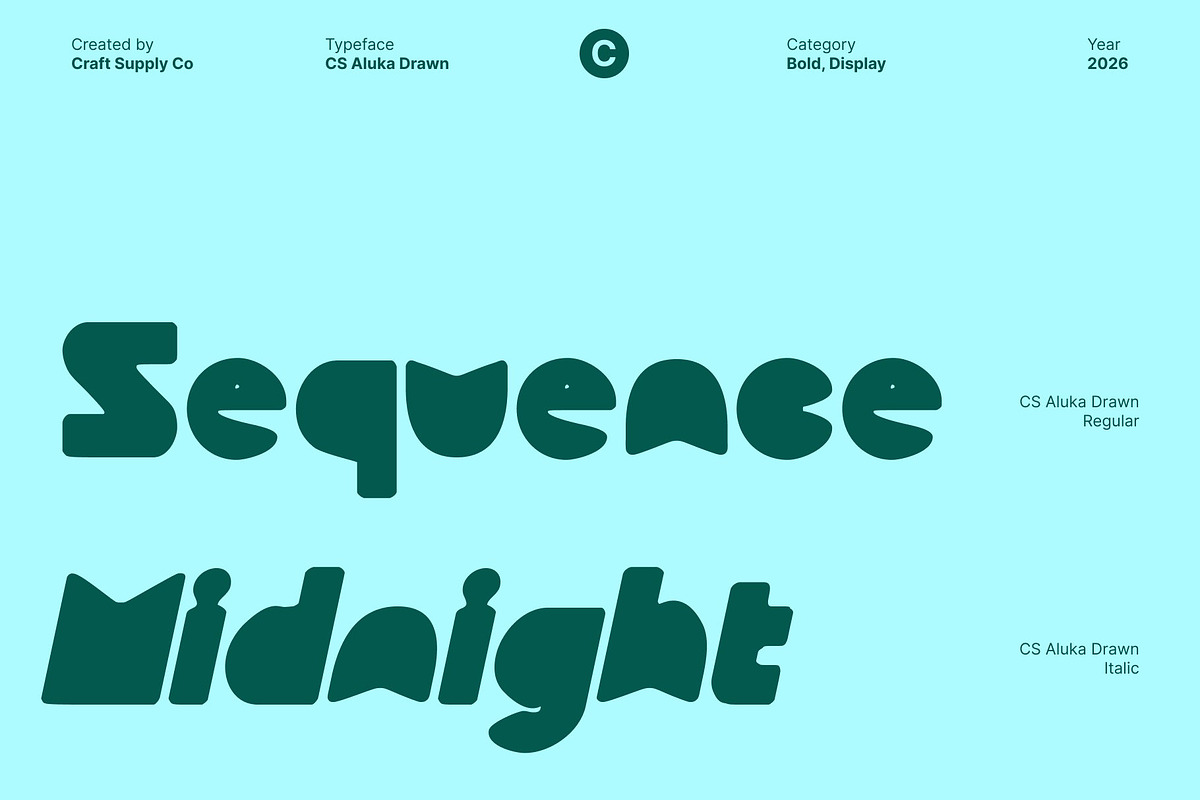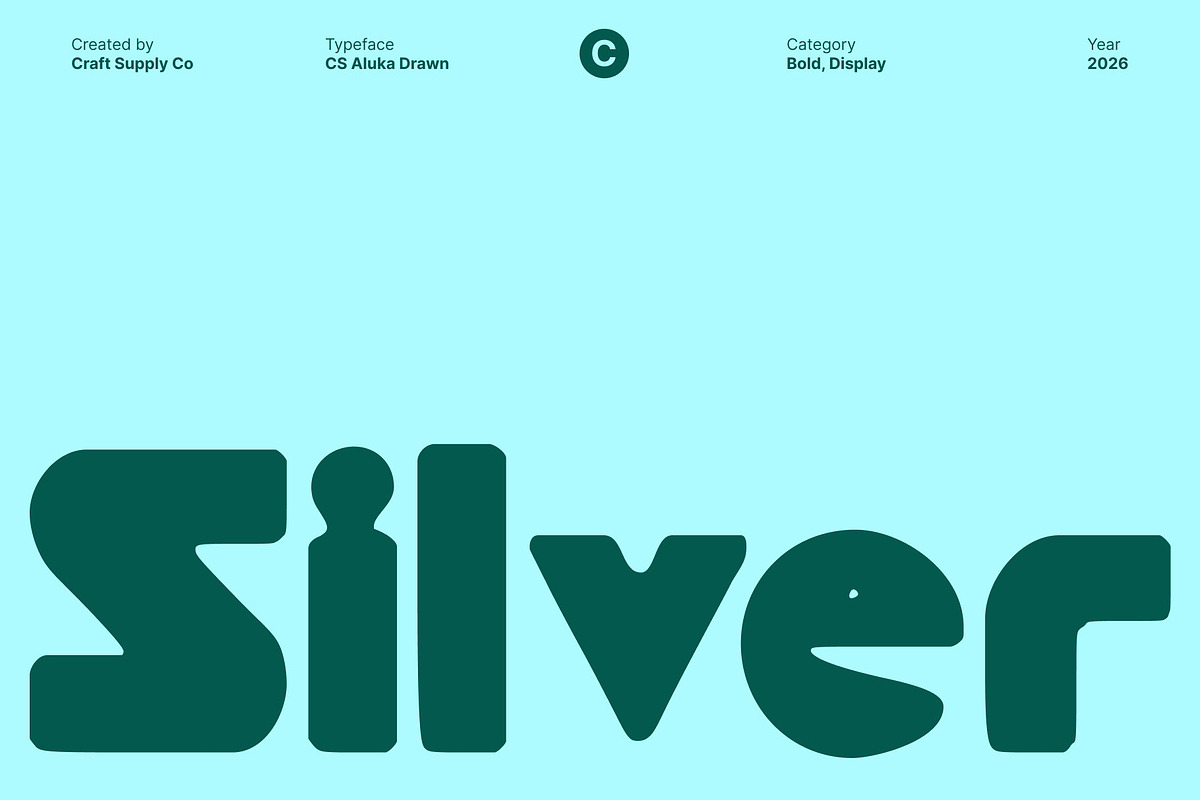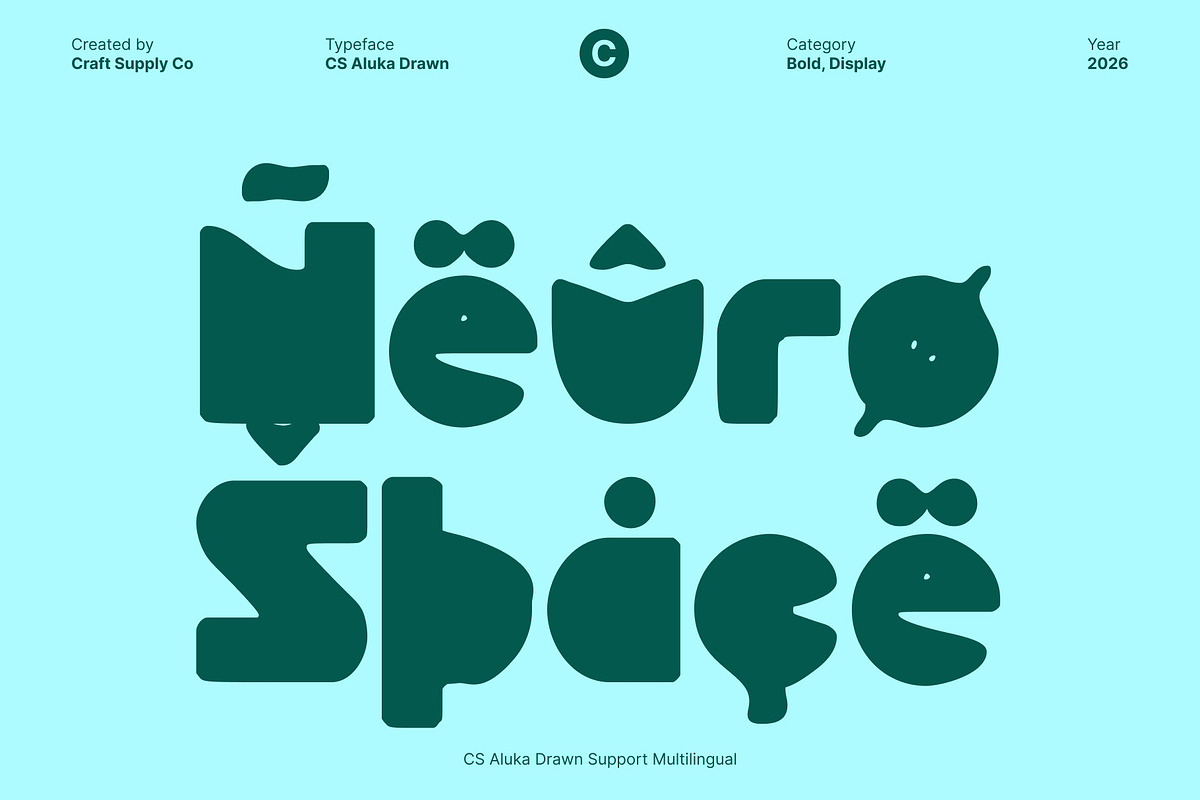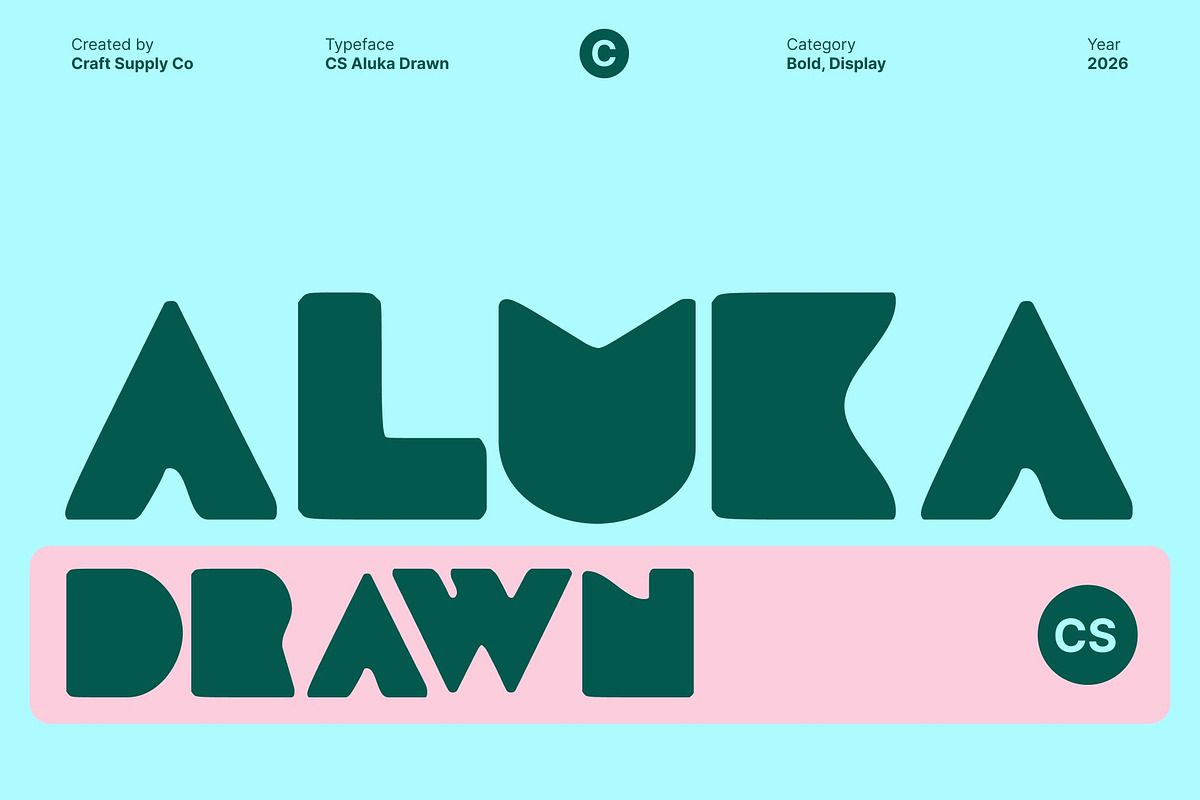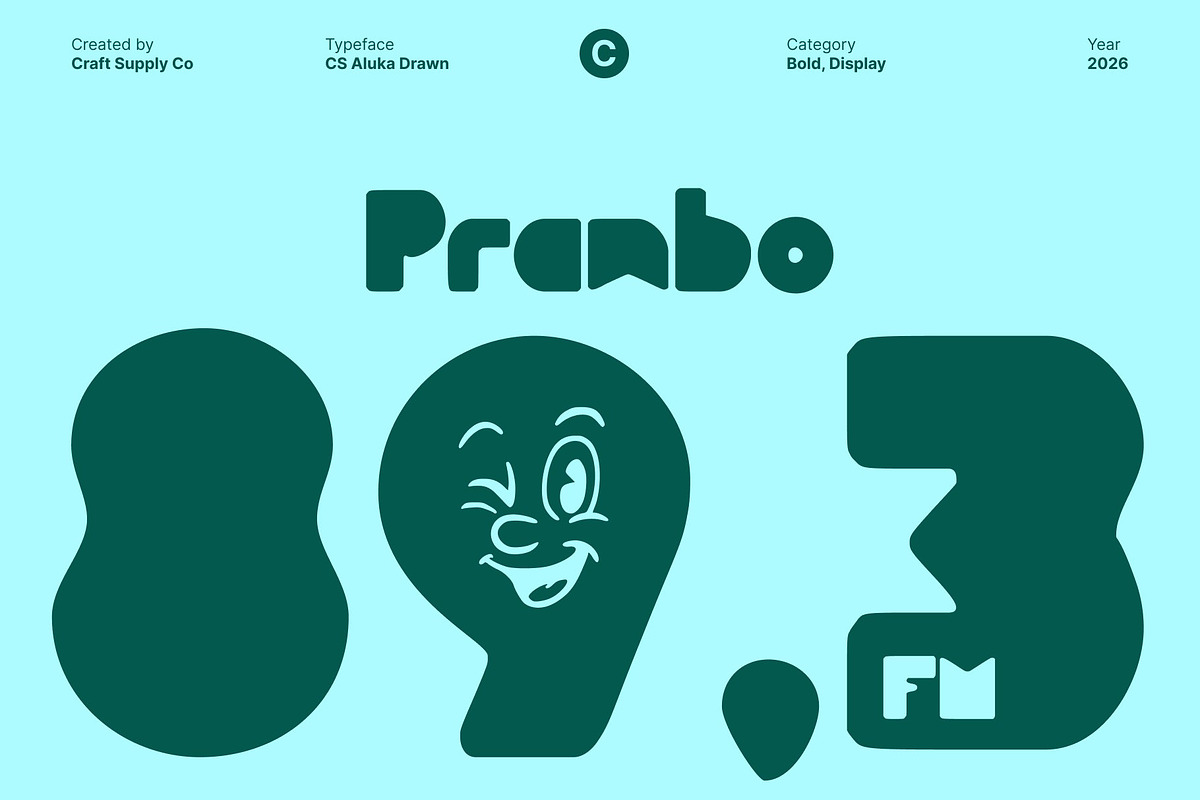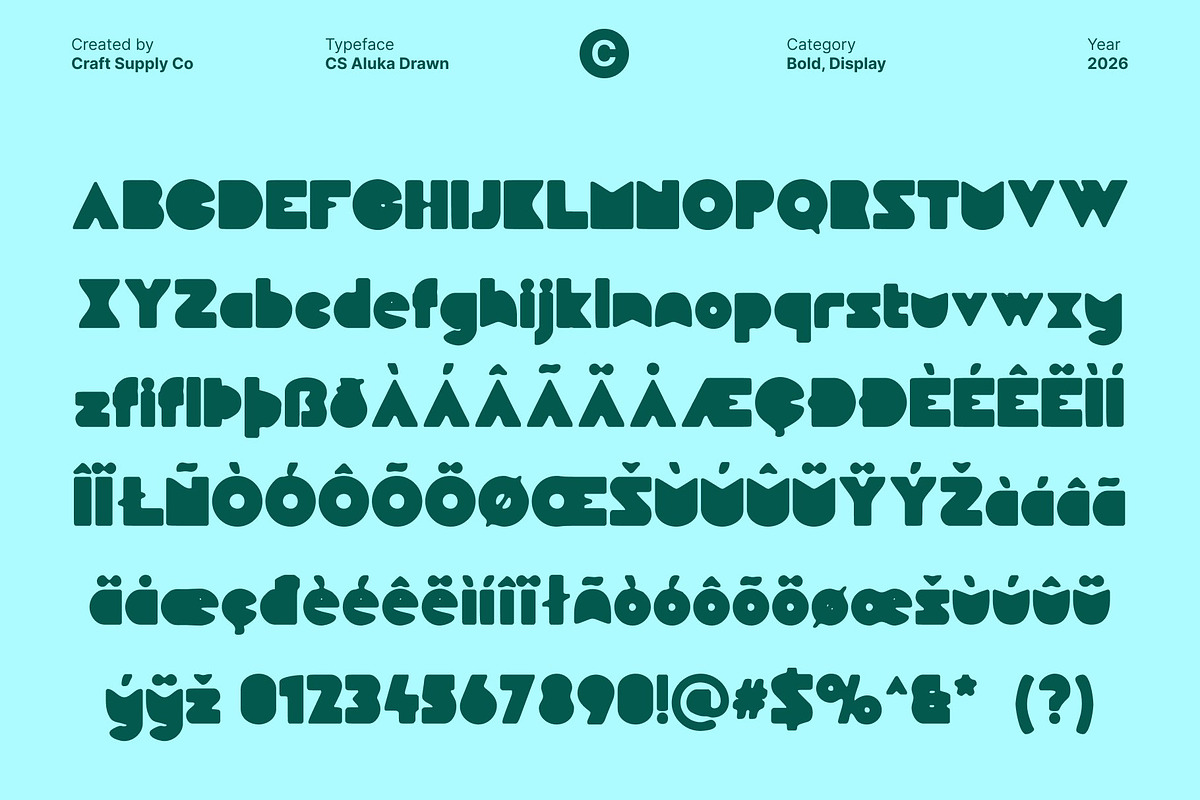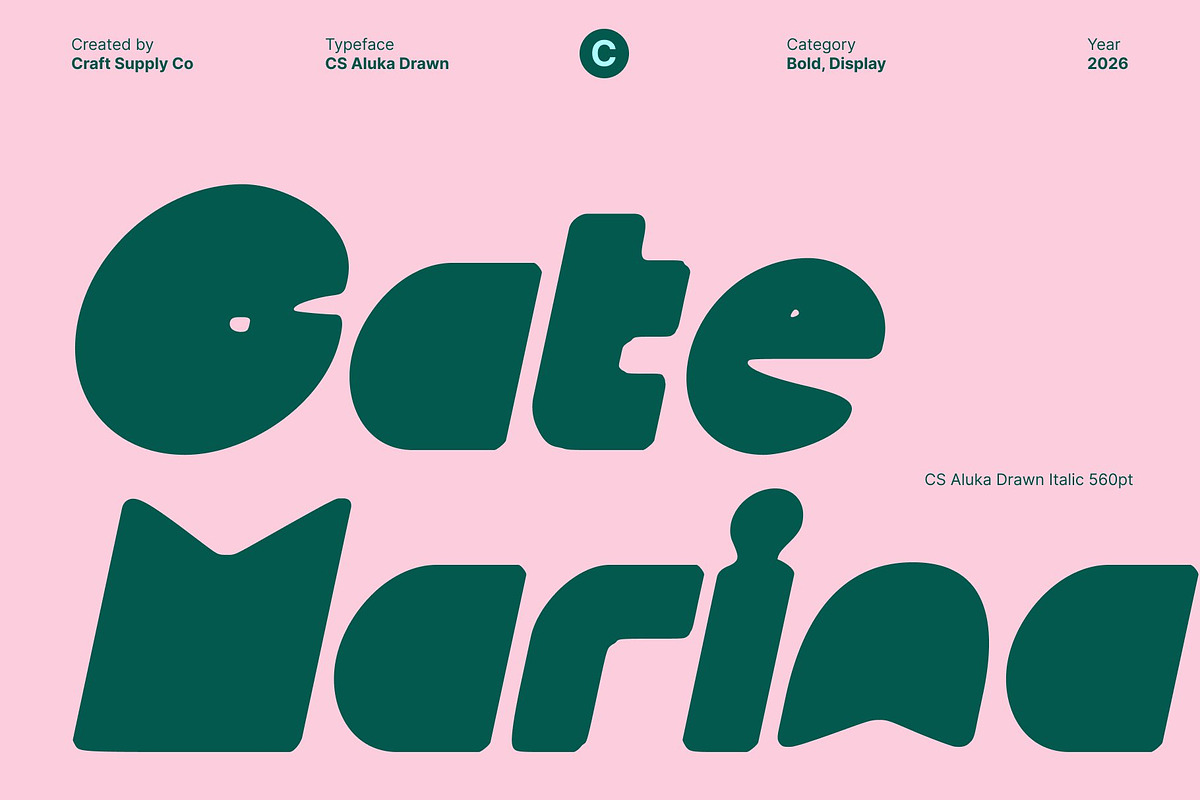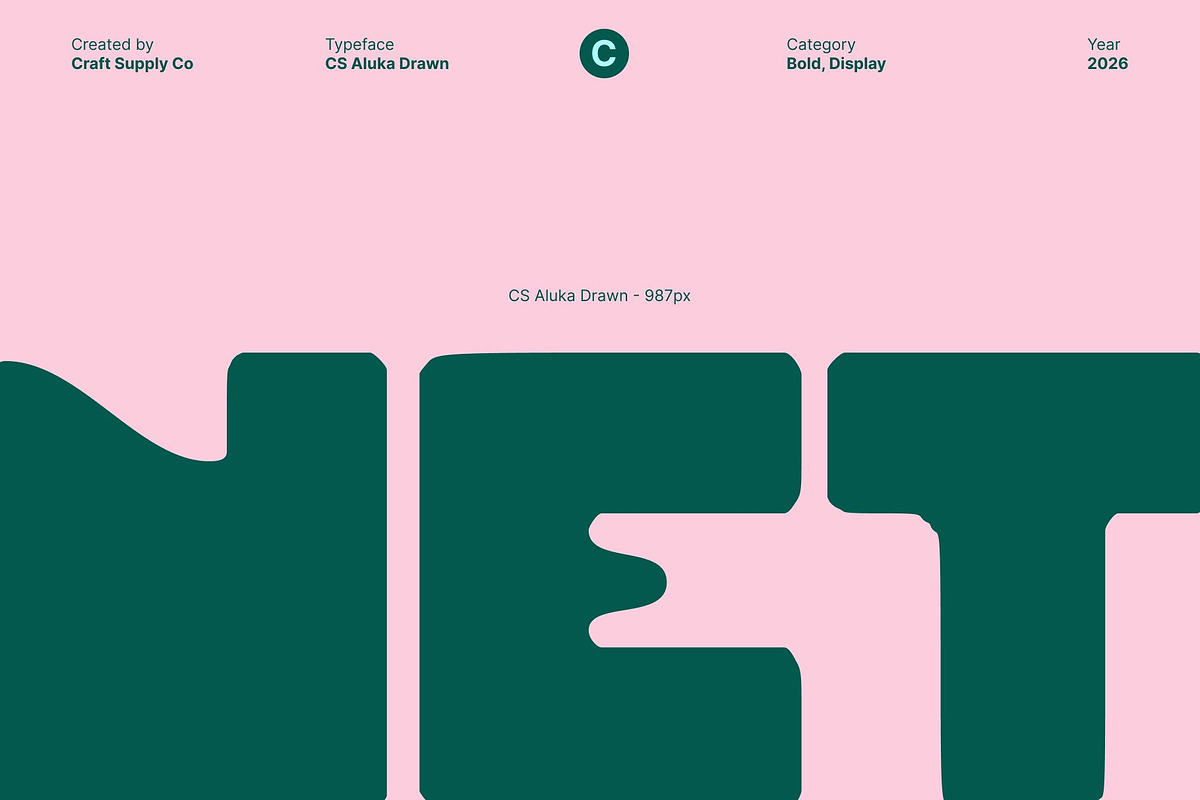
CS Aluka Drawn
CS Aluka Drawn – Modern Geometry with Artistic Expression
Bold Modern Sans Serif with Friendly Character This is a modern sans serif font defined by bold geometric lines and a clean, contemporary structure. Its confident shapes feel strong yet approachable, creating a friendly and fun personality that stands out without feeling overwhelming. The clear construction ensures excellent readability while maintaining a modern visual edge.
Geometric Structure with Playful Energy The geometric foundation of this font gives it a solid, balanced appearance. Strong strokes and well-proportioned forms create a sense of clarity and stability, while the slightly playful character adds warmth and personality. This combination makes the font feel modern, expressive, and engaging at the same time.
Artistic Drawn Texture for Expressive Depth The drawn effect introduces a subtle handmade texture that transforms the clean geometry into something more artistic. This hand-drawn touch adds visual depth and uniqueness to each character, softening the precision and giving the font a creative, expressive flair without sacrificing clarity.
Perfect for Editorials, Branding, and Digital Projects This is an excellent choice for editorials, branding, posters, and playful digital projects. Its balance of modern structure and artistic texture allows it to adapt across creative and professional uses, making it ideal for designers seeking a font that feels contemporary, expressive, and visually distinctive.
- CS Aluka Drawn Regular
- CS Aluka Drawn Italic